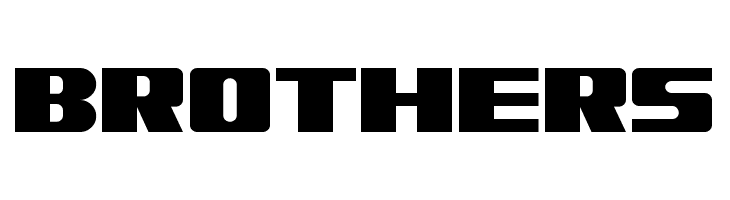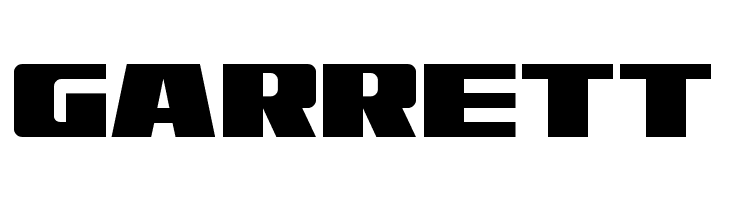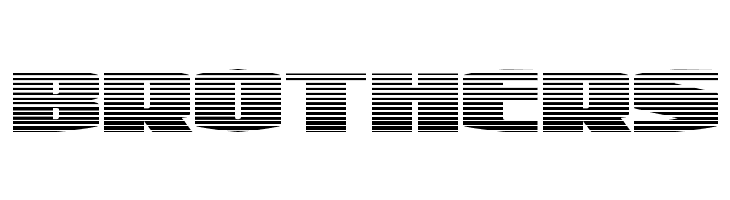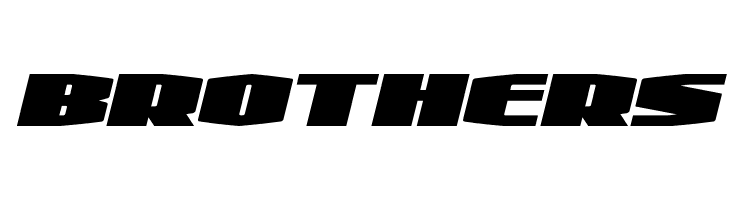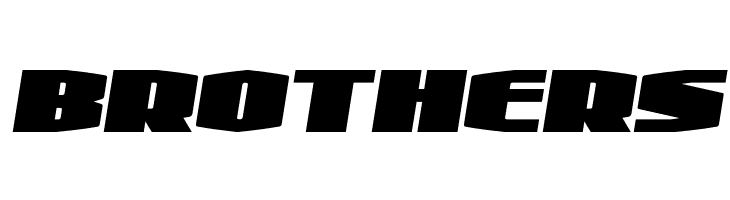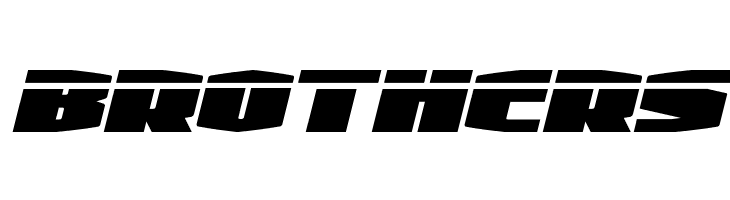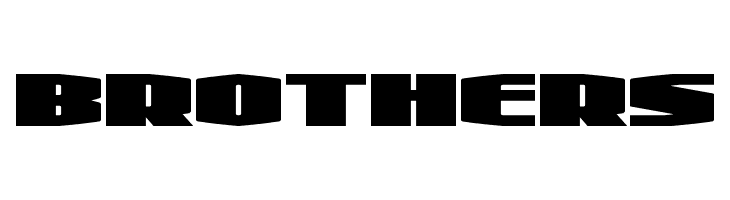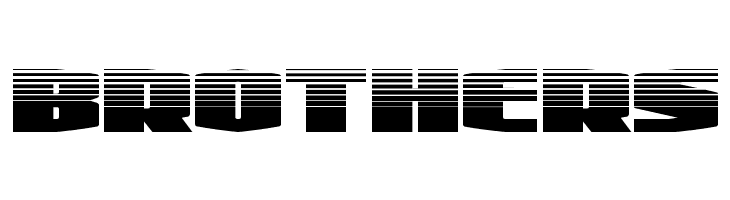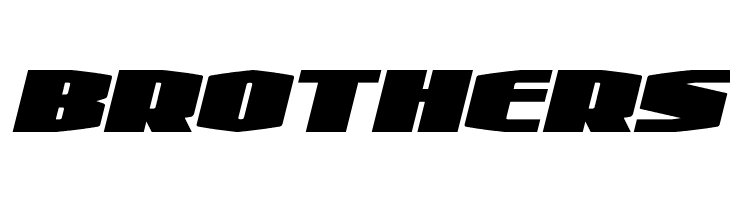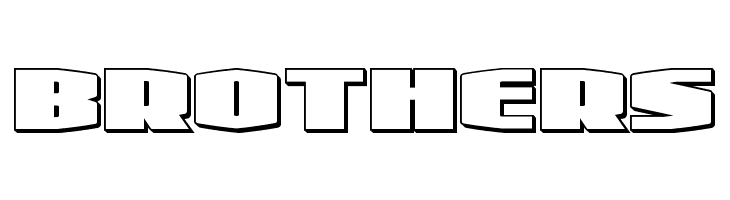
• ALOSKA
A bold, expressive handwritten font with dynamic strokes.
• alot of love
A bold, angular font with geometric and blocky letterforms.
• Alota Demo Version
A bold, decorative font with intricate swirls and high contrast, perfect for artistic projects.
• Alota-DemoVersion
A bold, decorative font with ornate swirls and high contrast.
• Alouette Personal Use
An elegant script font with flowing, cursive letters and a classic appearance.
• Aloya
A playful, rounded font with smooth curves and a friendly appearance.
• Alpaca Scarlett Demo
A bold, geometric sans-serif font with a modern and clean design.
• Alpaca Scarlett Demo
A modern, geometric sans-serif font with a clean and professional look.
• Alpaca Solidify
A bold, geometric font with a modern and clean style.
• Alpaca Solidify
A bold, geometric font with modern and angular characteristics.
• ALPACA54
A versatile font with clean geometric and distressed grunge styles.
• Alpenkreuzer
A bold, geometric font with strong, block-like characters and a modern aesthetic.
• Alpha
A bold, geometric font with angular and futuristic design elements.
• Alpha Beta
A playful, bold font with rounded edges and a hand-drawn feel.
• Alpha Centauri
A playful, hand-drawn font with bold, irregular strokes and a casual style.
• Alpha Centauri
A bold, playful handwritten font with dynamic strokes and a casual style.
• Alpha Century
• Alpha Century 3D
A bold, 3D geometric font with a futuristic style.
• Alpha Century 3D Italic
A bold, 3D italic font with a futuristic and dynamic style.
• Alpha Century Semi-Italic